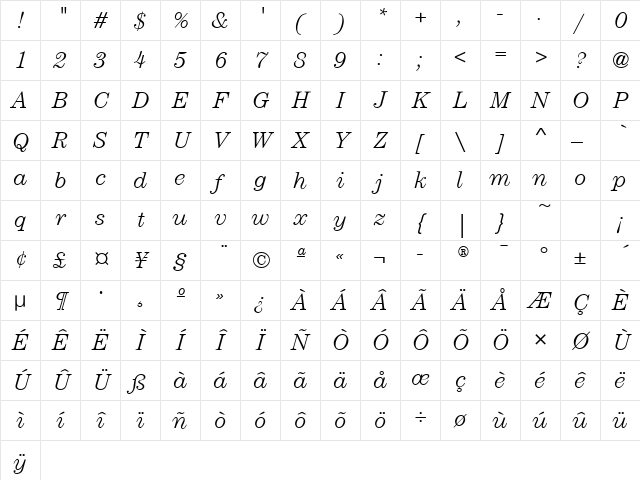
CenturyITC Light Italic
Foundry: E+F Designstudio. ITC Century is a registered trademark of International Typeface Corporation
Design Context for CenturyITC
CenturyITC is a composed and adaptable typeface that performs quietly and consistently across a wide range of design contexts. The slanted form adds forward momentum and visual energy. Its slender proportions lend an understated elegance to any composition.
Pro Tip: Use CenturyITC for emphasis, pull quotes, and subheadings where its slanted energy can add rhythm to the layout.
Who designed the CenturyITC Light Italic font?